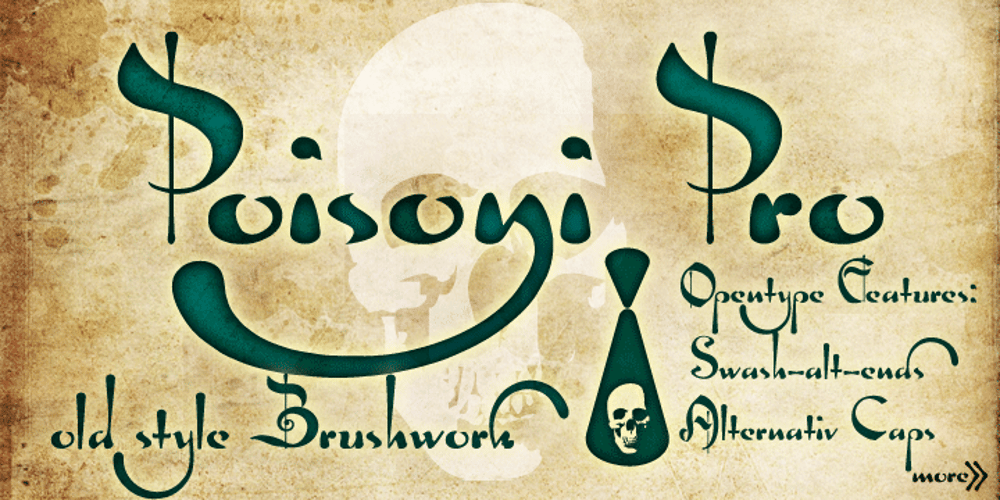
Poisoni Pro Font Family was designed by published by Otto Maurer. Poisoni Pro contains 7 styles and family package options. Old styled Brushwork-Font. Poisoni Pro comes with many OpenType-Features. Three Styles of Numbers, Three Styles of Caps, many Ligatures and alternate Ends with Swashes. Also Ligatures for the Glyphes “Th”, Td, Tk and more.